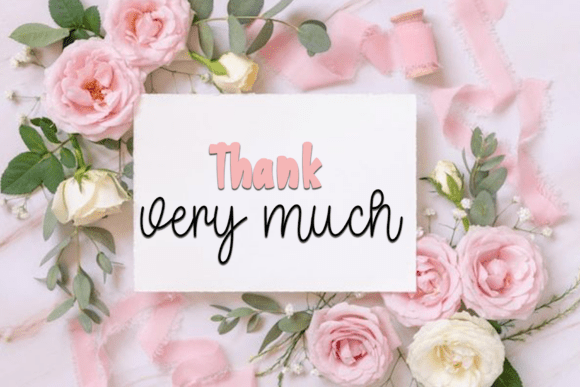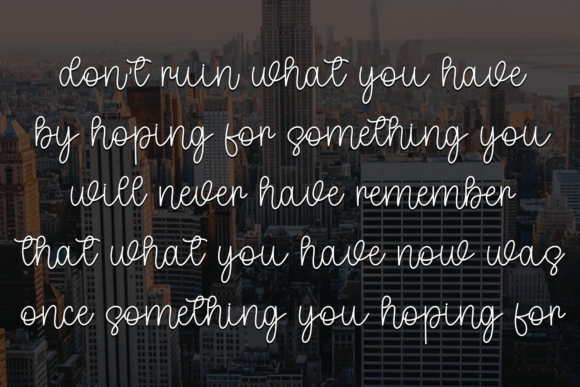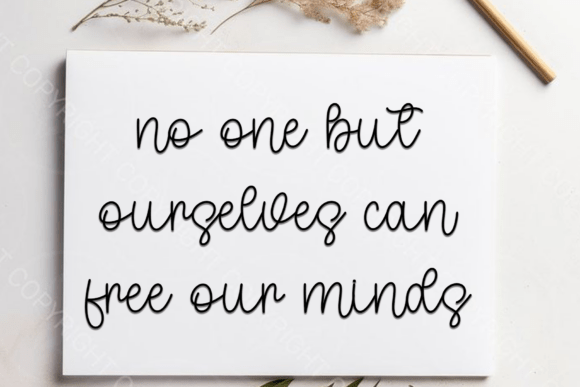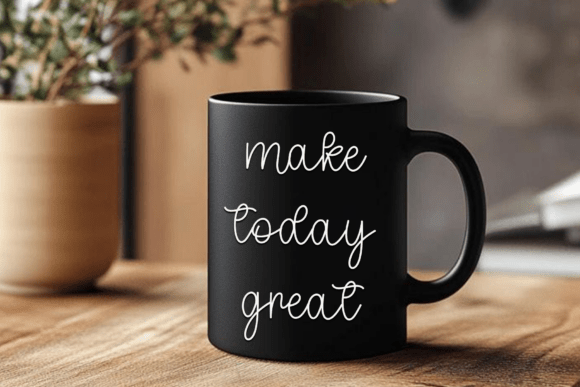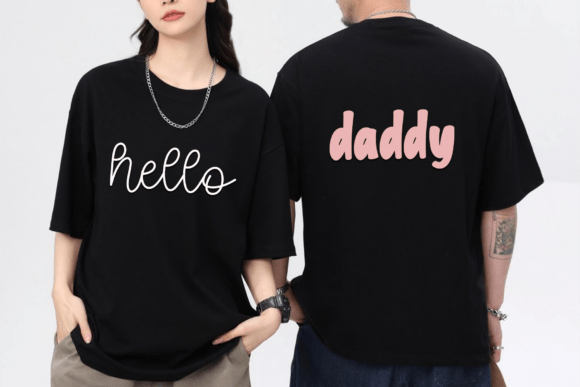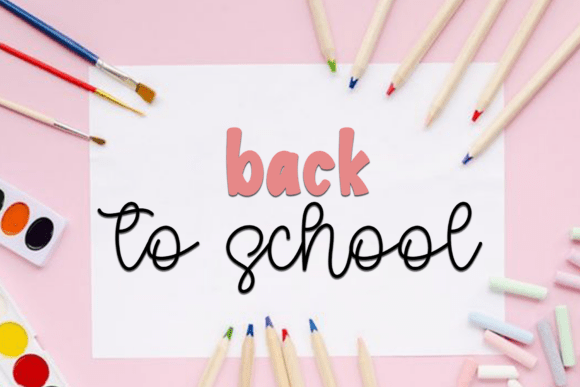
Introduction to Mickey Smile Font
As I sat at my desk, surrounded by scraps of paper, glitter, and half-finished designs, I stumbled upon the perfect addition to my holiday project – the Mickey Smile Font. The moment I typed out the words ‘Merry Christmas’ in this delightful font, I knew I had found something special. The whimsical flair and decorative elements transported me to a world of nostalgia and enchantment, instantly elevating my design from ordinary to extraordinary.
For designers, finding the right font can be a game-changer, especially when it comes to creative projects that require a high level of visual impact. The Mickey Smile Font is a valuable resource for anyone looking to add a touch of magic to their designs. With its PUA encoding, accessing all the amazing glyphs and ligatures is a breeze, making it a hassle-free addition to your design arsenal.
Mickey Smile Font
- Unique characteristics include a playful, cursive script and a mix of uppercase and lowercase letters
Honest Review: Mickey Smile Font
I recently had the opportunity to work with the Mickey Smile Font in a creative project, and I must say it’s been a fantastic experience. The font is a high-quality design resource that’s perfect for adding a touch of Disney magic to your work.
- ✨ The font is incredibly versatile and can be used in a variety of creative projects, from logos to typography.
- ✨ The transparent background makes it easy to customize and integrate with other design elements.
- ⚠️ The font is a bit limited in its expressiveness, making it better suited for projects that require a more subtle touch.
- ⚠️ Some users may find the font too cutesy or childish, which can be a drawback for more serious design projects.
Overall, I’m really impressed with the Mickey Smile Font. It’s a high-quality design resource that’s perfect for adding a touch of whimsy to your work. While it may have some limitations, it’s definitely worth checking out for any designer looking to add some Disney charm to their creative project.
Mickey Smile Font
The Mickey Smile Font is a high-quality design resource ideal for creative projects that require a touch of whimsy and fun. With its unique and playful style, this font is perfect for designers looking to add a personal touch to their work.
The Mickey Smile Font is commonly used in:
- Children’s party invitations and decorations.
- Food and beverage branding.
- Social media graphics and ads.
Cambria
Cambria is a high-quality, serif font that is great for use in body text and other areas where a clear and readable font is desired. It is ideal for use in reports, essays, and other formal documents where a professional tone is required. Unlike Mickey Smile Font, Cambria has a more traditional and formal feel, making it a great alternative for designers working on high-quality, professional projects.